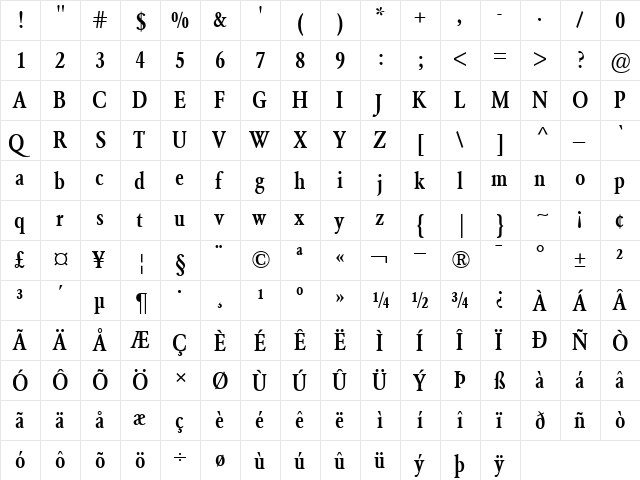
GaramondBE-CondensedMedium Medium
Design Context for GaramondBE-CondensedMedium Typeface
GaramondBE-CondensedMedium takes a measured approach to typography — its balanced proportions and neutral character make it a reliable workhorse for both digital and print work. The condensed width makes it efficient for tight spaces without sacrificing legibility.